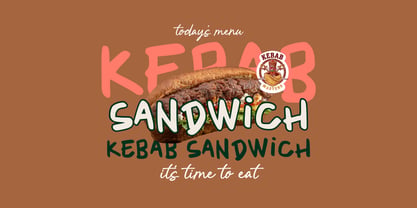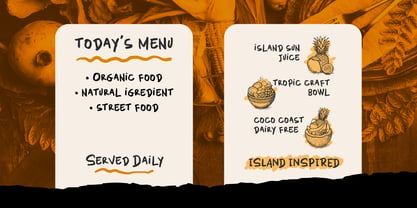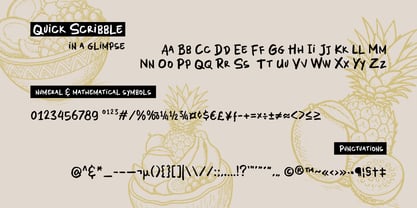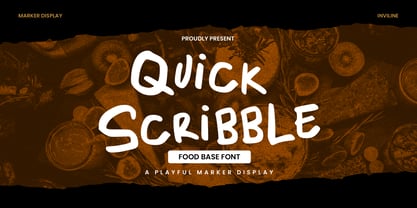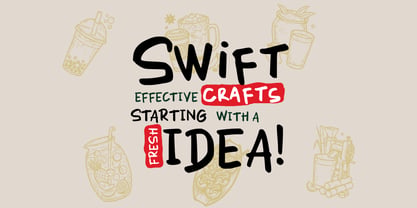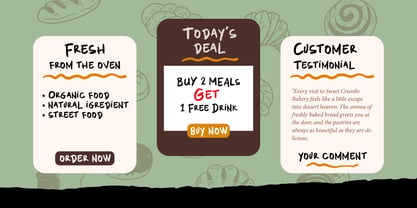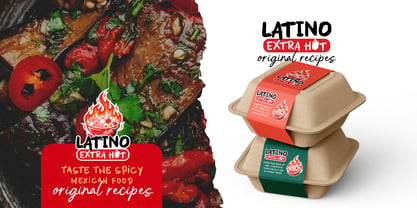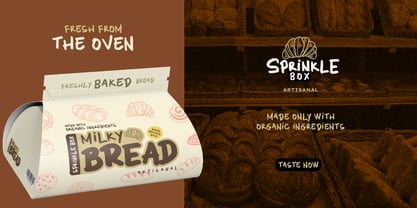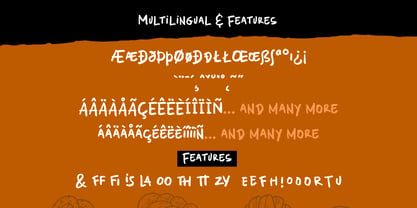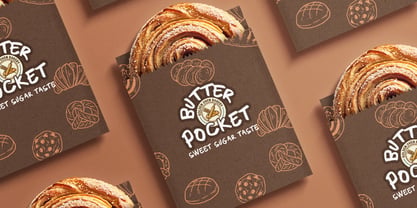
Quick Scribble
von Inviline
Die Schriftfamilie Quick Scribble wurde von Virgiawan Listanto entworfen und von Inviline veröffentlicht. Quick Scribble enthält 1 Stile. Mehr über diese Familie
Good food deserves great type. Quick Scribble is a hand-drawn marker display font specifically crafted for the food and beverage industry. This font imparts a handwritten feel to menus, adds an artisan touch to packaging labels, and gives food brands a genuinely warm character. The letterforms are chunky and bold, showcasing a natural marker-on-paper quality that balances neatness with a hint of roughness. This unique personality makes it both approachable and memorable. Quick Scribble performs beautifully at headline sizes on restaurant signboards and excels at smaller scales on product labels, making it a versatile choice for branding, web design, and editorial applications.
Designer: Virgiawan Listanto
Foundry: Inviline